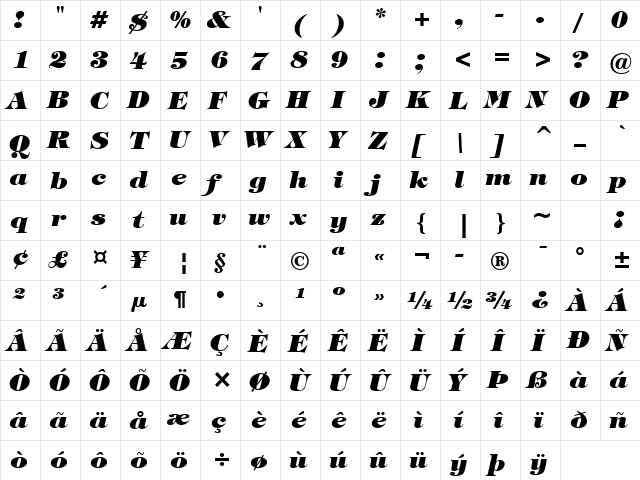
Tiffany HvIt BT Heavy Italic
Design Context for Tiffany HvIt BT Typeface
Tiffany HvIt BT takes a measured approach to typography — its balanced proportions and neutral character make it a reliable workhorse for both digital and print work. The dynamic lean of this cut emphasises speed and emphasis in any layout.
Pro Tip: Use Tiffany HvIt BT for emphasis, pull quotes, and subheadings where its slanted energy can add rhythm to the layout.